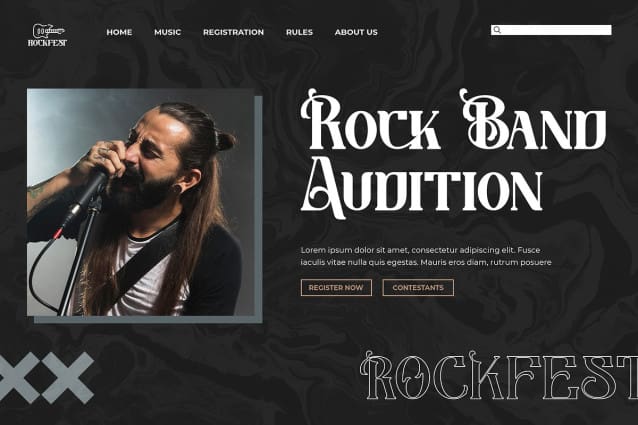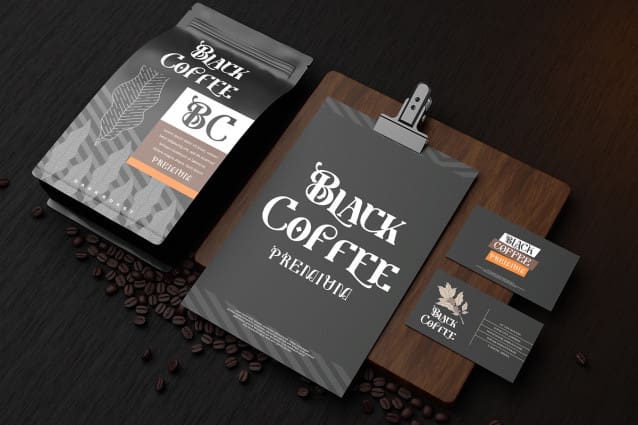
Guitar Rocker Font
Guitar Rocker Font, a compelling serif typeface that harmoniously blends bold elegance with distinctive character forms. Perfect for a myriad of design projects, from product packaging to branding, this font’s PUA encoding guarantees seamless access to a wealth of unique glyphs and swashes, promising exceptional outcomes for your creative endeavors.